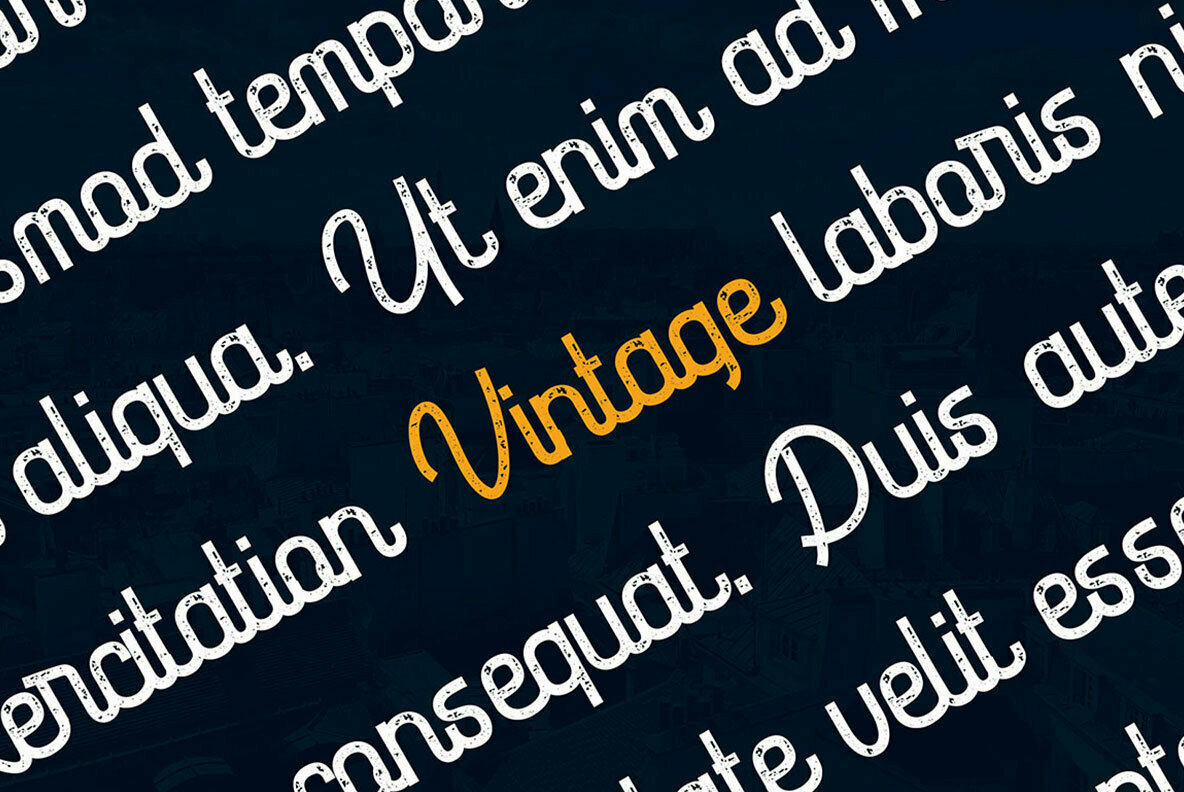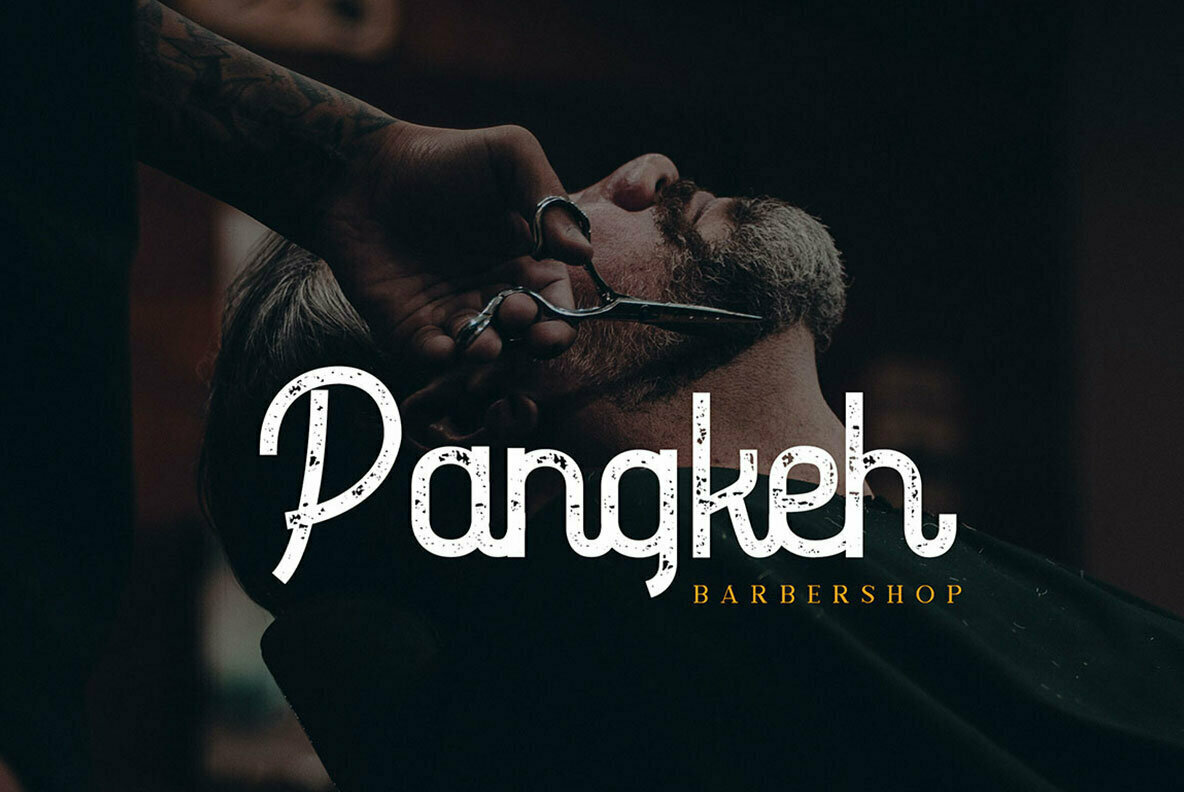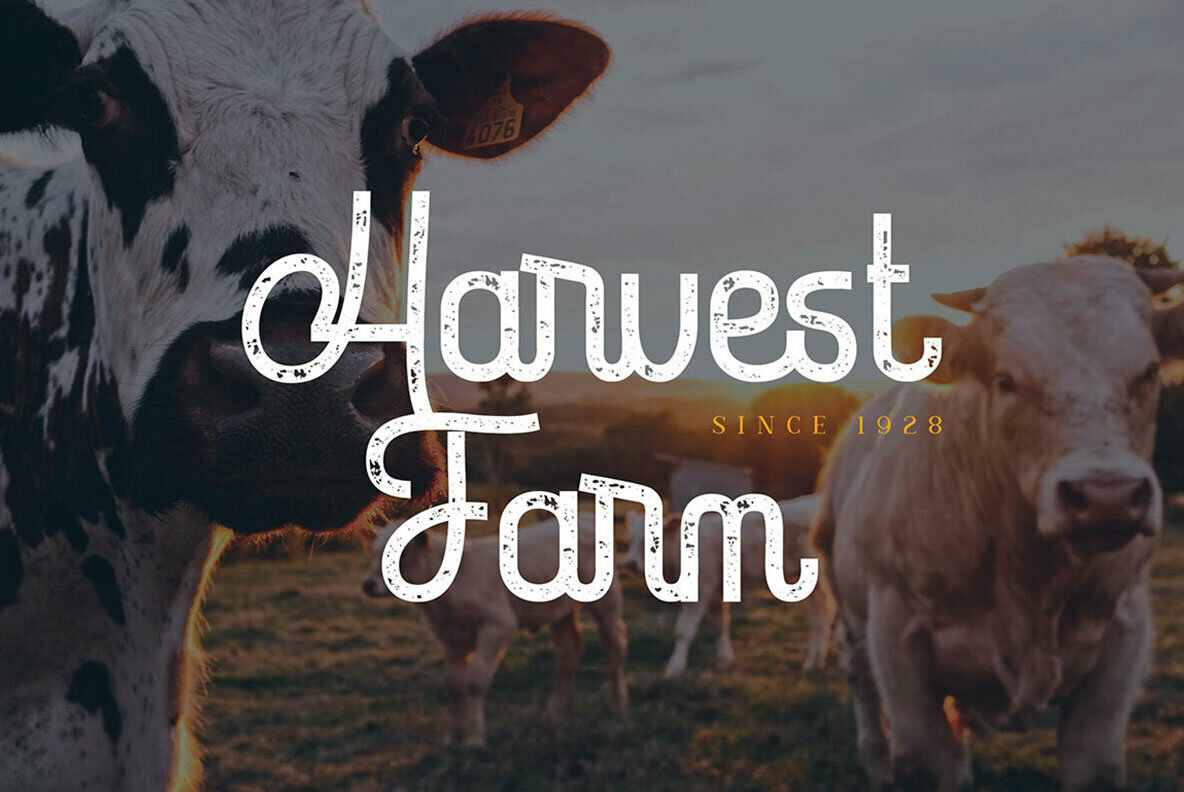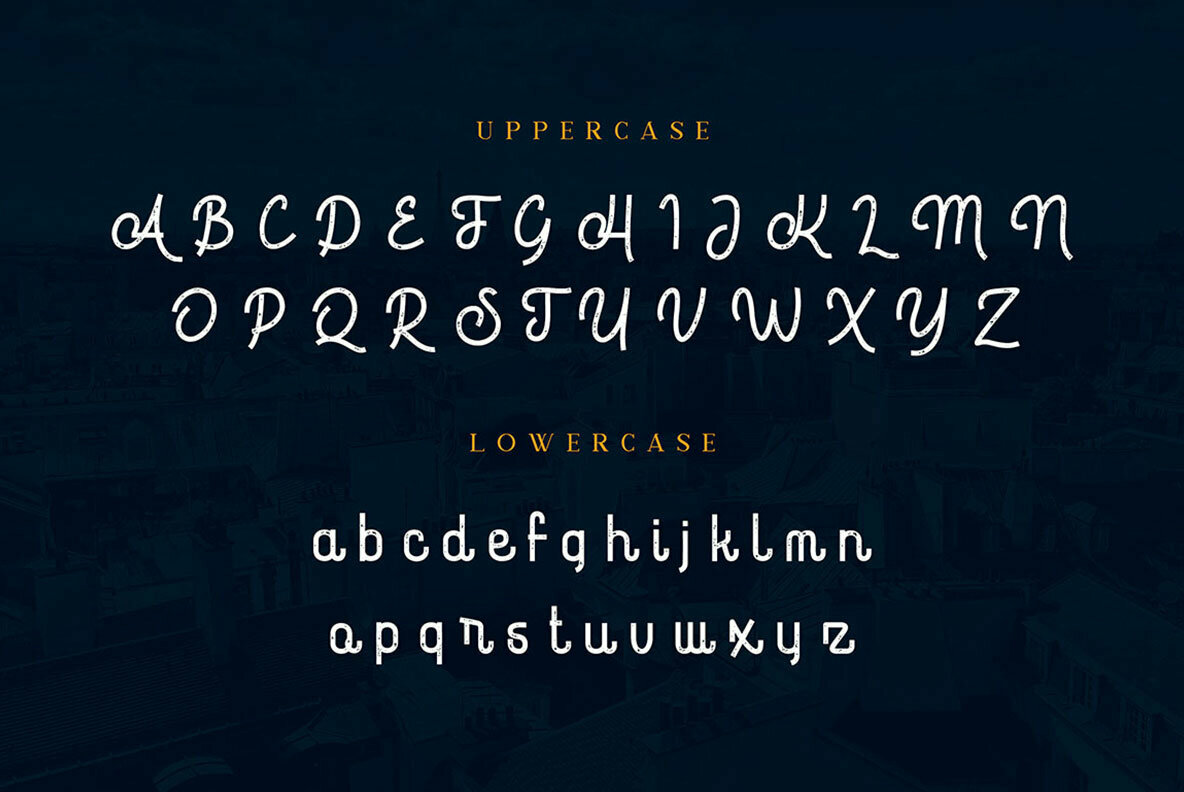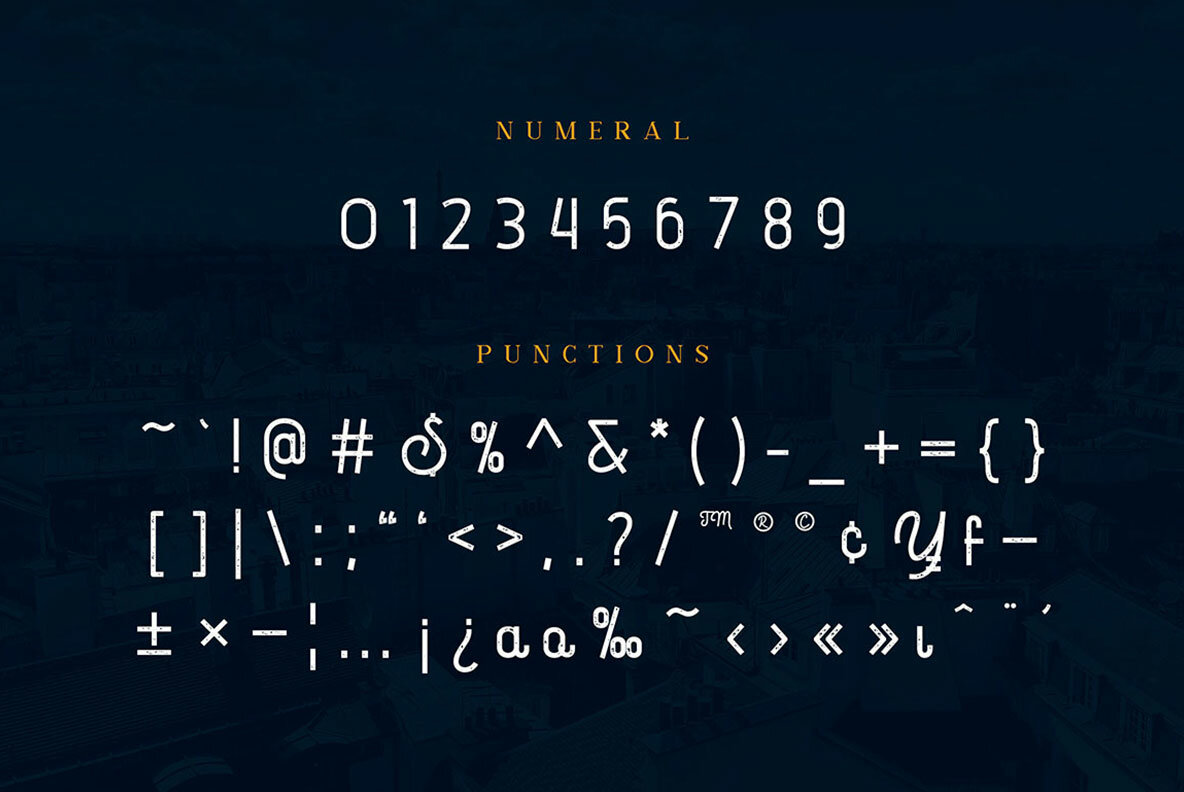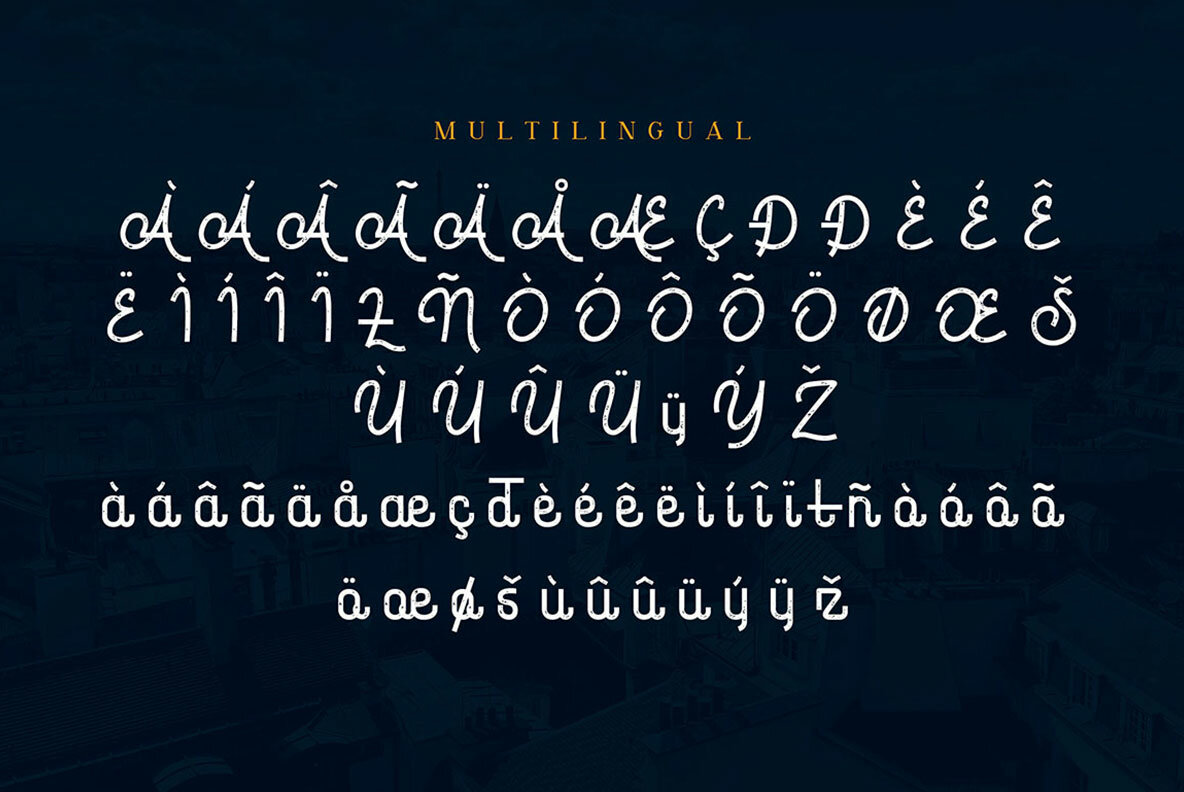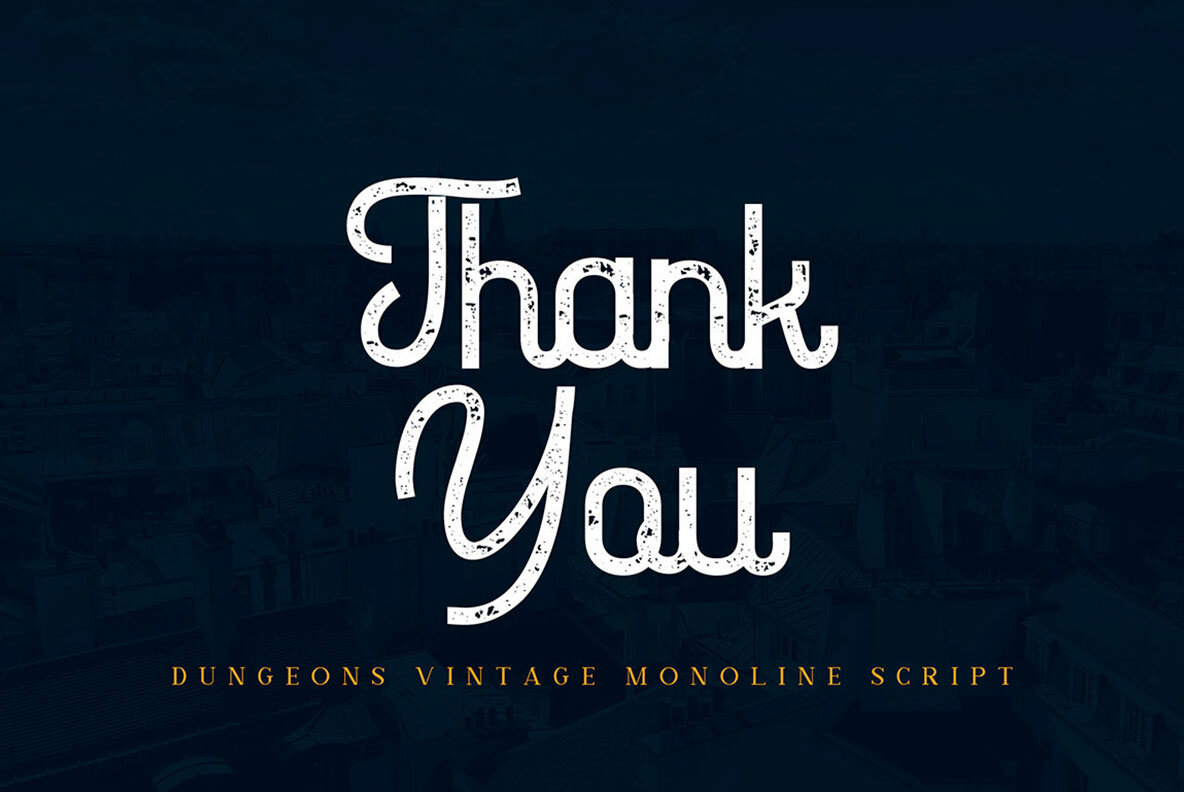
Dungeons Font
Dungeons Regular
Dungeons is a vintage monoline script font that embodies elegance and a timeless appeal. This font seamlessly bridges old-school charm with a modern aesthetic, making it an ideal choice for diverse design projects.Dungeons: The Vintage Monoline Script Font